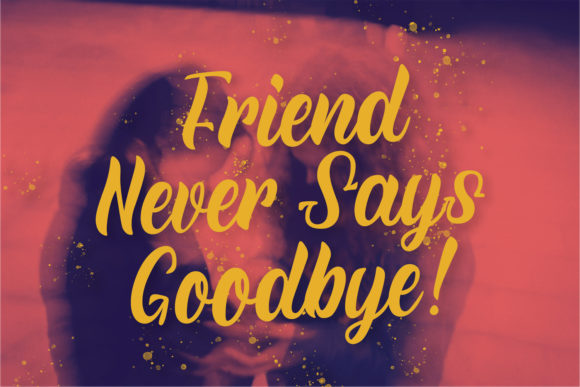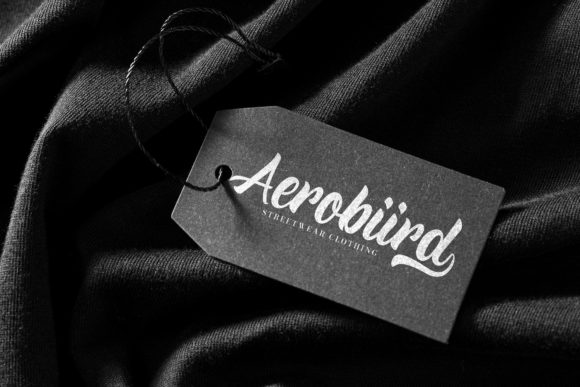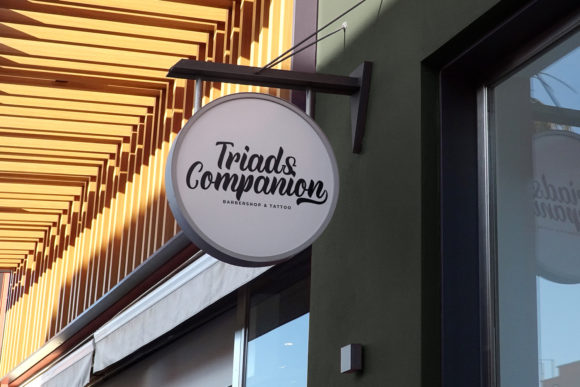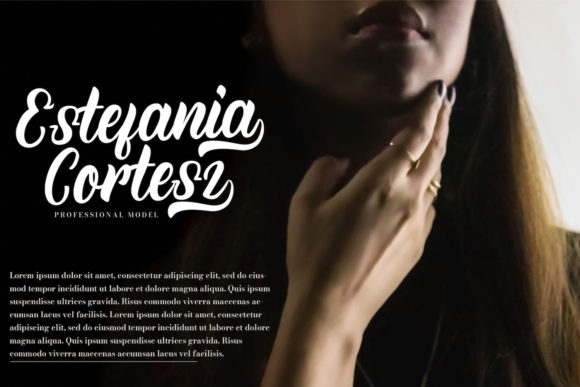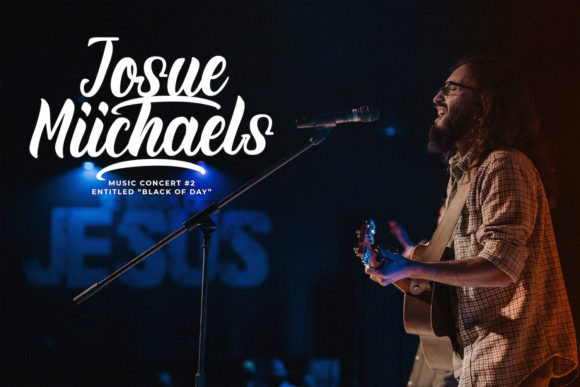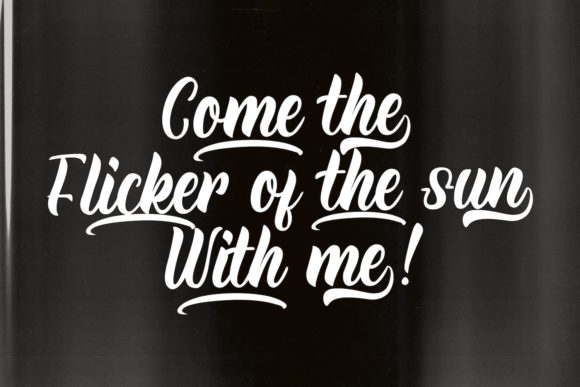
Introduction to Rineghan Font
Remember the moment when a single font choice elevated your entire design project? For many creatives, that ‘aha’ moment is what drives their passion for design. It’s a feeling that can be elusive, but with the right tools, it’s within reach. The Rineghan Font is one such game-changer, offering a unique blend of vintage charm and modern appeal that’s sure to captivate your audience.
As a design resource, Rineghan Font is a valuable addition to any creative’s toolkit. Its strong and bold script style is perfect for branding, and its PUA-encoded glyphs make it easy to access the full range of swashes and flourishes that bring this font to life.
Whether you’re working on a high-quality design project or simply looking for a free download to spice up your next creative venture, Rineghan Font is an excellent choice. With its transparent background and stunning visual impact, this font is sure to make your ideas shine.
Key Features of Rineghan Font
- High-quality, professional font design ideal for various creative projects, including graphic design, digital art, and publishing.
- Transparent background, allowing for seamless integration with images and other design elements.
- Features a unique, modern design aesthetic that can add a touch of sophistication to any project.
- Perfect for designers and artists seeking a high-quality, versatile font for their next creative project.
Honest Review: Rineghan Font
I recently came across the Rineghan Font and I must say it’s a fantastic addition to any designer’s arsenal. With its clean and elegant design, it’s perfect for creative projects that require a touch of sophistication.
Here are some of the things that work well with the Rineghan Font:
- Only available in a limited number of font styles
- May not be suitable for bold or dramatic designs
Overall, the Rineghan Font is a solid choice for designers looking for a high-quality, elegant font for their creative project. While it may have some limitations, its versatility and affordability make it a worthwhile addition to any design resource collection.
The Rineghan Font is a versatile and high-quality design resource perfect for various creative projects. Its transparent background makes it easy to use in any design platform.
Getting the Most Out of Rineghan Font
To get the most out of the Rineghan Font, experiment with different font sizes, colors, and combinations. Use it in conjunction with other design elements to create visually appealing designs.
The Rineghan Font is perfect for various design projects, including:
Logo design
Social media graphics
Presentations
Document design
Infographics
Alternatives to Rineghan Font
Great Vibes is a high-quality, cursive font perfect for creative projects requiring a touch of elegance. It features a transparent background, making it ideal for overlaying text on images. This font is suitable for design resources that need a sophisticated and modern look.
Great Vibes compares to Rineghan Font in terms of its versatility and high-quality design. However, Great Vibes has a more refined and polished appearance, making it suitable for a wider range of design applications.
Alex Brush is a beautiful, handwritten font ideal for design projects that require a personal and creative touch. It features a transparent background, allowing designers to easily overlay text on images. This font is perfect for design resources that need a unique and artistic look.
Q: Is the Rineghan Font available with a transparent background?
Yes, the Rineghan Font includes a transparent background option, allowing for seamless integration with your design project. This feature is particularly useful for creating high-quality designs with a clean and modern look.